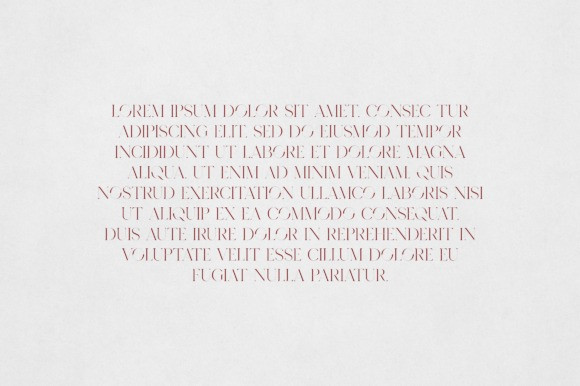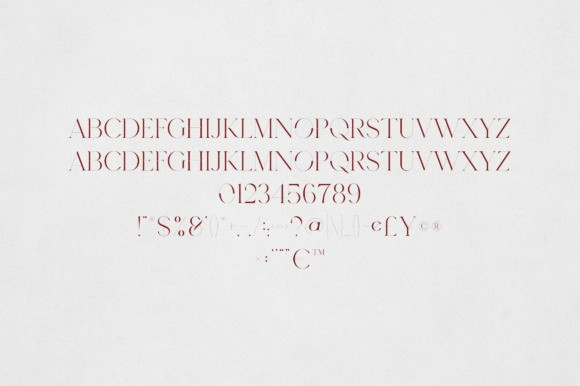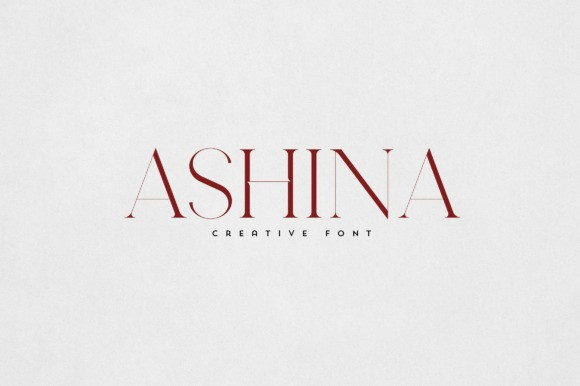
Ashina Font
Ashina Font is an elegant and versatile font that will make your typography truly unique! It will enchant every logo, branding, headline, or plain text!